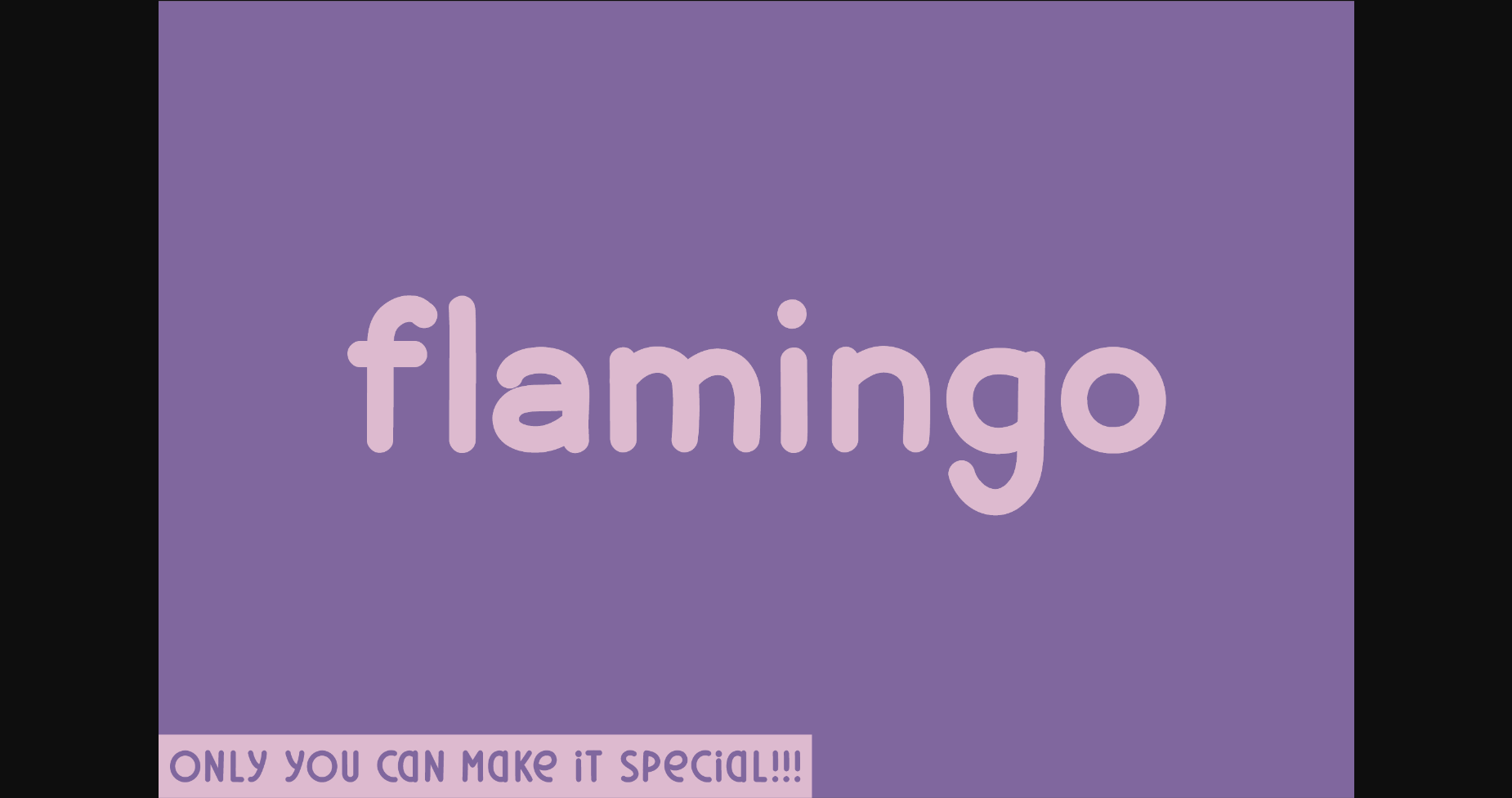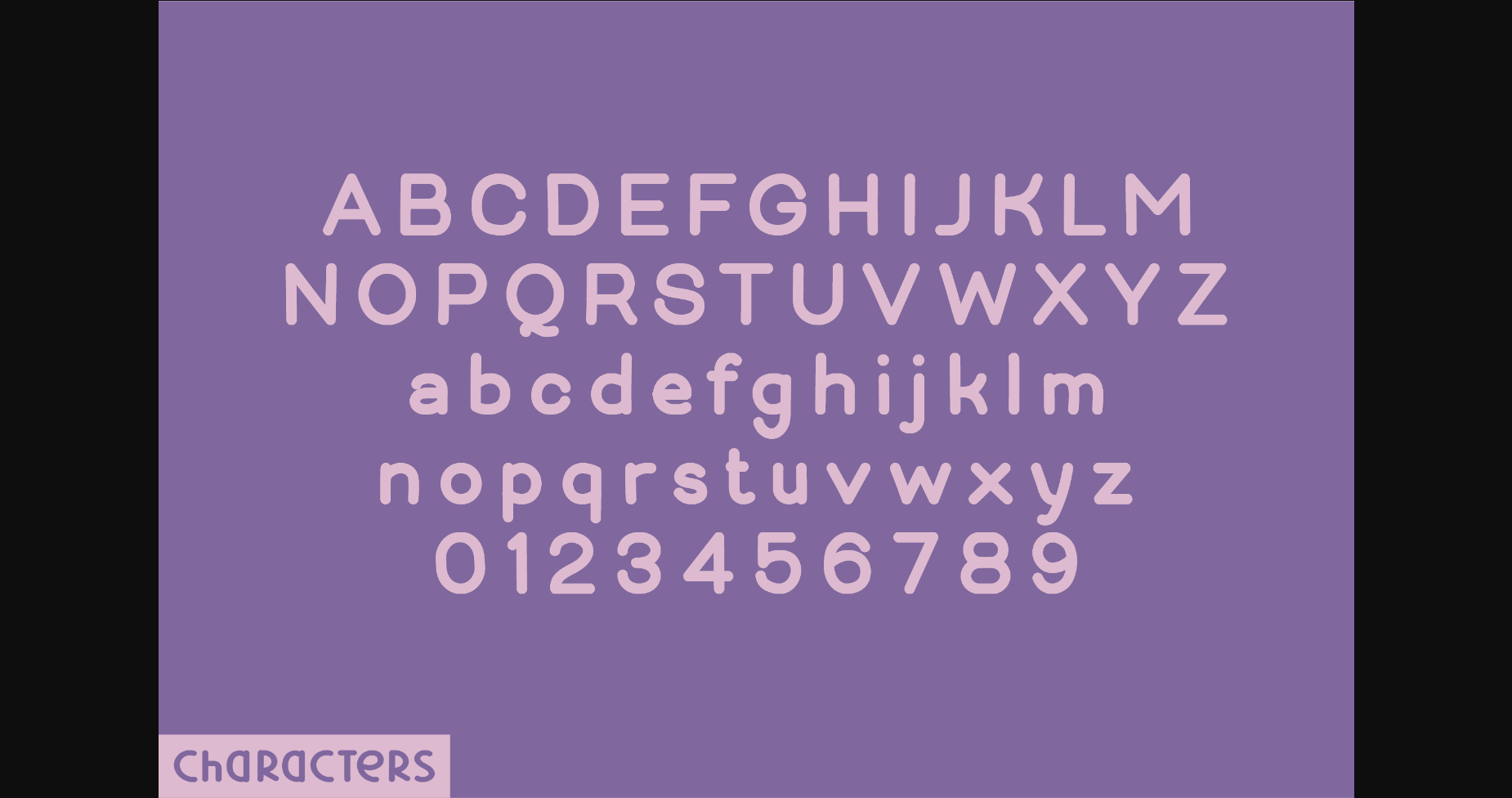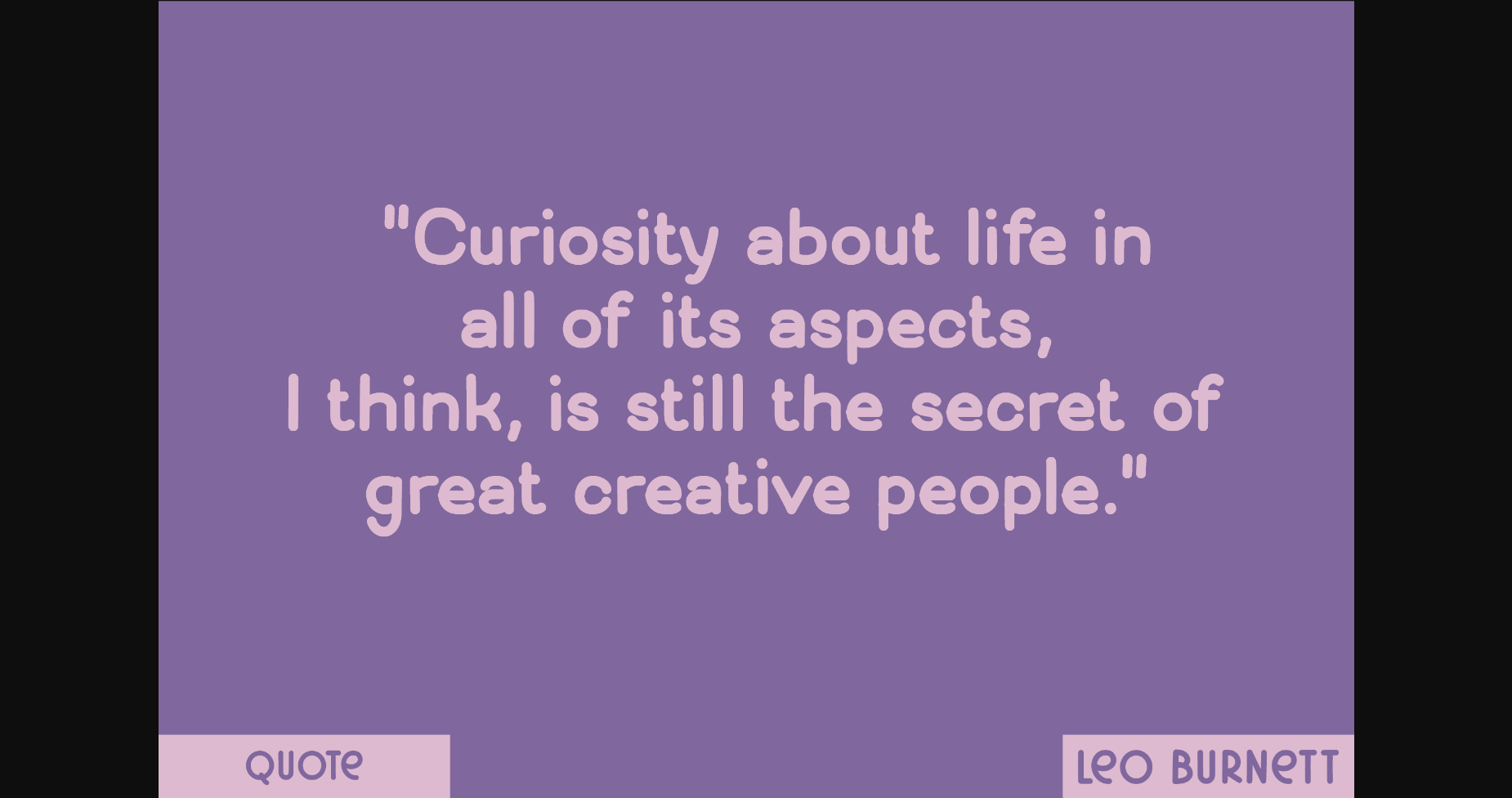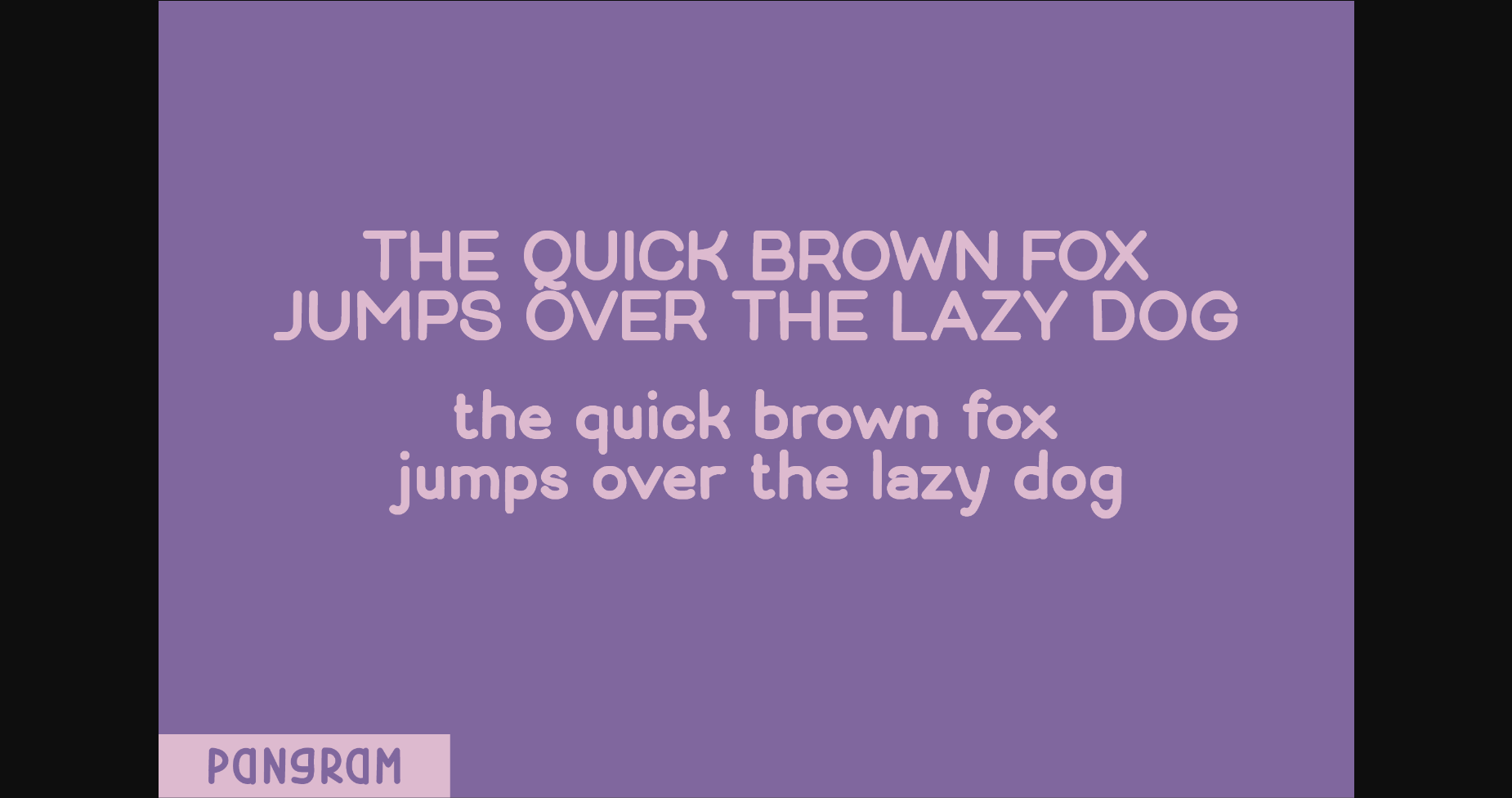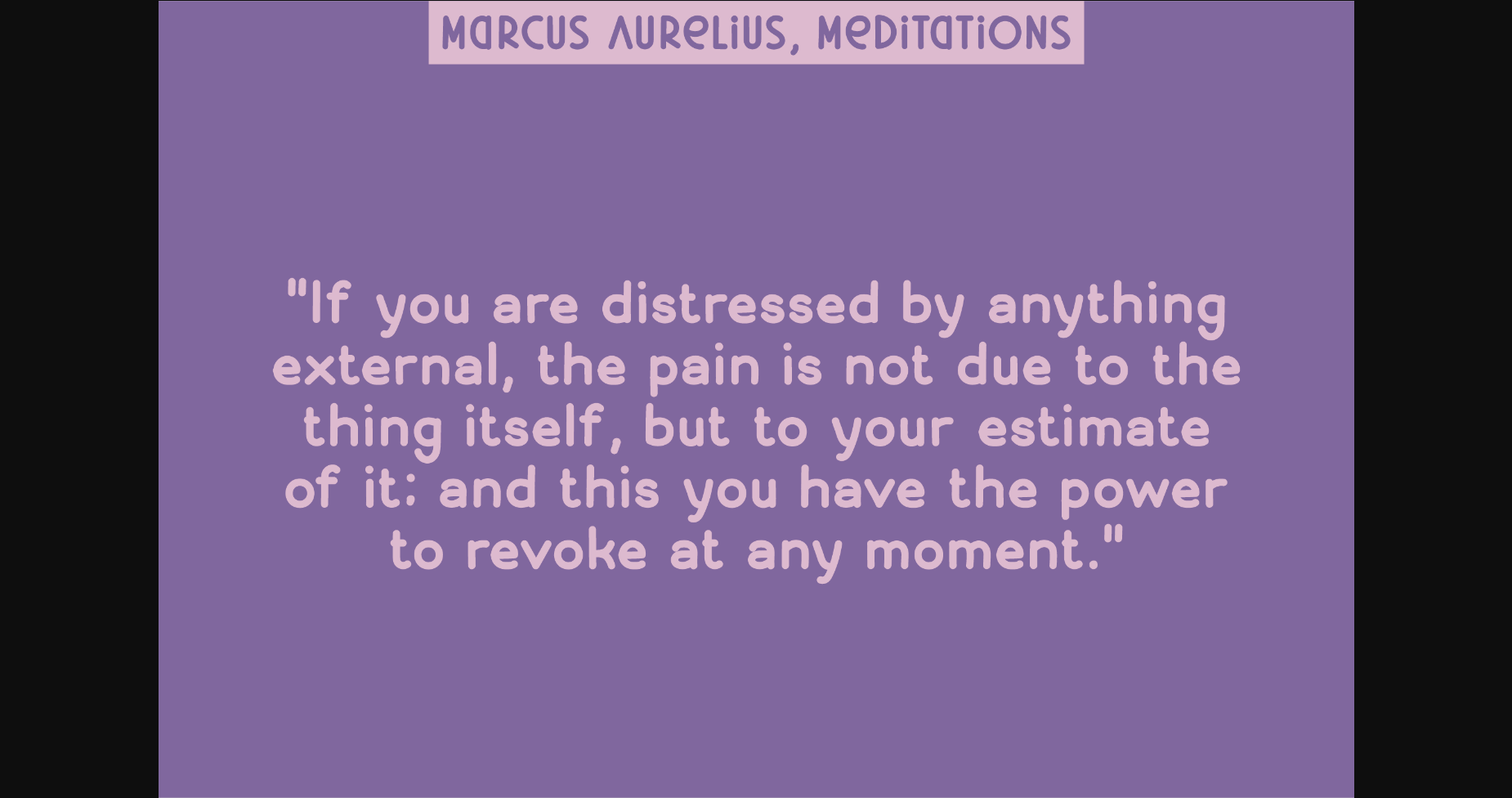
HomeSans Serif FontsFlamingo Font Sans Serif Fonts Flamingo Font FacebookXPinterestWhatsApp 1 of 7 ... Flamingo Font Poster 2... Flamingo Font Poster 3... Flamingo Font Poster 4... Flamingo Font Poster 5... Flamingo Font Poster 6... Flamingo Font Poster 7... About Flamingo Font Flamingo is a bold and unique sans serif font, perfect for quotes, notes, tees, logos, social media and any design that requires a classic touch. DOWNLOAD NOW People also explored Technology Font Desintha Font Raindrops Font Faith Robertson Font State Evidence Davy Jones Font Lancaster Font Midnight Motion Font Pumpkinlab Font 405 0 TagsFlamingo Font Previous articleBouncy Bunny FontNext articleHoney Bunch Font LEAVE A REPLY Cancel reply Comment: Please enter your comment! Name:* Please enter your name here Email:* You have entered an incorrect email address! Please enter your email address here Website: Save my name, email, and website in this browser for the next time I comment. Personal Use Free Rookie Mastering Personal Use Free Read more about this font Black Jalal Personal Use Free Read more about this font Whitelight Personal Use Free Read more about this font Aldenburg Personal Use Free Read more about this font BLOG Using Fonts in Digital Marketing: Tips to Strengthen Your Brand Identity In the realm of digital marketing, every visual element plays a crucial role in shaping a brand's identity, and fonts are no exception. The... Fonts That Capture the Spirit of New York City Elegant Wedding Invitation Fonts – Handwritten & Script Fonts Best Fonts for T-Shirt Design – Top 2025 Picks